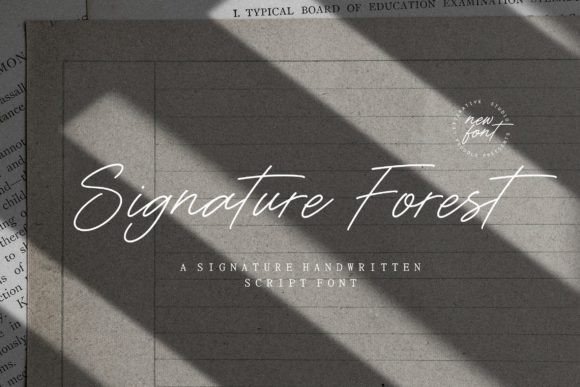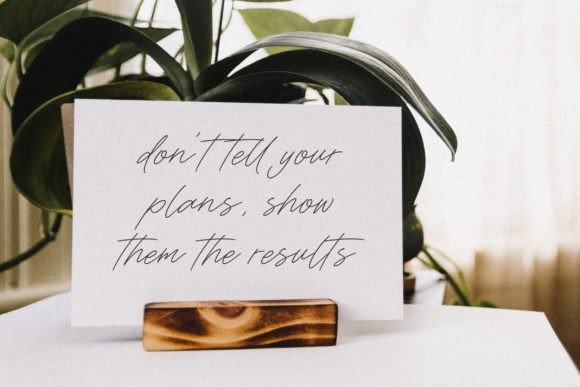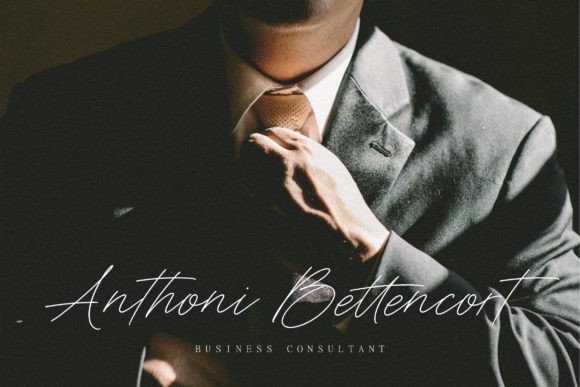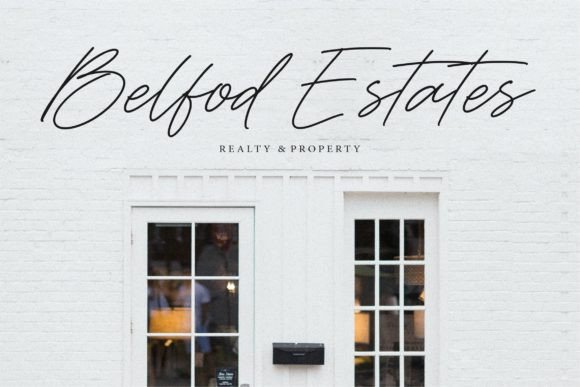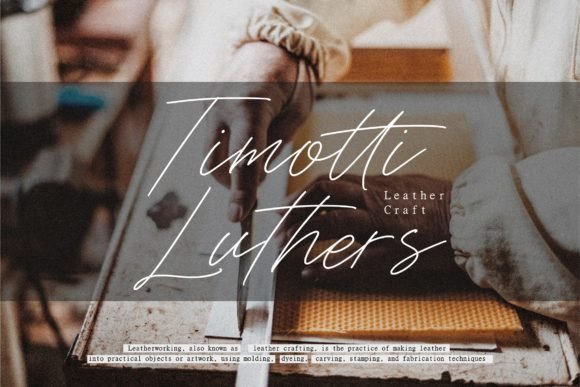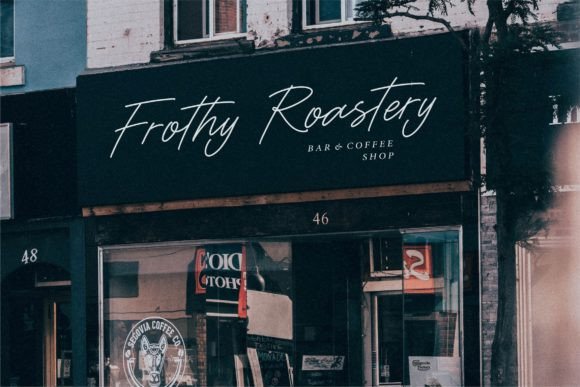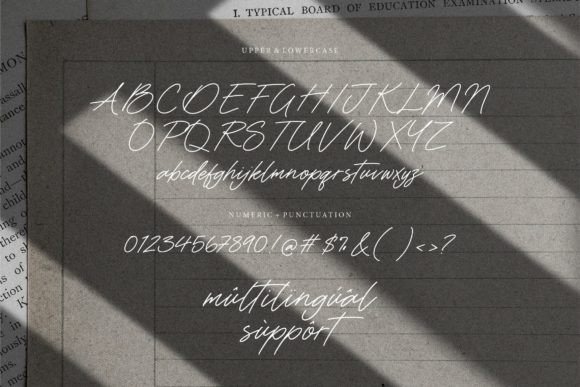
Signature Forest Font
A Modern Monoline Script
Signature Forest is a clean and stylish monoline script font. Each letter has a smooth line weight, creating a balanced and modern look. The font feels elegant yet relaxed, making it a great choice for many creative projects.
Its refined shapes and natural flow help every word look polished. Whether you’re designing personal notes or professional branding, Signature Forest brings a unique character that stands out.
Perfect for Many Creative Uses
Signature Forest is incredibly versatile. You can use it for crafts, digital designs, and social media graphics. It works beautifully for greeting cards, wedding invitations, and event signage.
This font also shines in presentations and marketing materials. Its clean lines make your text easy to read while still feeling personal and stylish.
The font includes uppercase and lowercase letters, numbers, and punctuation marks. It also features ligatures that help your text flow naturally. With these tools, you can create layouts that feel complete and professional.
Easy to Read and Elegant
Even though Signature Forest has a handwritten script style, it stays clear and legible. The consistent spacing and smooth letterforms help your text look tidy and balanced, even at smaller sizes.
Designers often pair Signature Forest with simple sans-serif fonts to create contrast. Use Signature Forest for titles and the sans-serif for body text. This approach makes your layout feel fresh, modern, and easy to follow.
Tips for Beautiful Results
To highlight Signature Forest’s modern lines, use minimal backgrounds and neutral colors. Soft tones like beige, white, or light gray help the font’s style shine.
If you want a more elegant look, add delicate textures or subtle patterns. For personal projects like greeting cards, consider adding watercolor elements or floral graphics. These details can make your design feel more thoughtful and special.
Think about the mood you want to share. Signature Forest is perfect for work that needs to feel sophisticated, warm, and authentic.
A Must-Have Font for Your Collection
Signature Forest is more than a monoline script font. It’s a design tool that helps you turn simple text into something memorable. Its smooth strokes and clean style add a touch of elegance to any project.
Adding Signature Forest to your font library means you always have a reliable option for creative work. From crafts and digital designs to professional presentations and special occasions, this font adapts to any idea with ease.